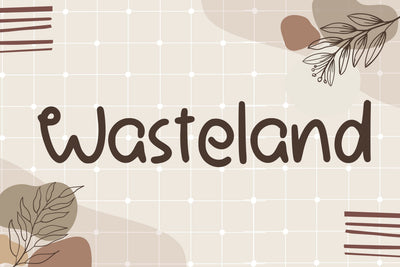
Wasteland Font
Wasteland is a delicate, elegant and flowing handwritten font. It has beautiful and well balanced characters and as a result, it matches a wide pool of designs. Add it to your most creative ideas and notice how it makes them come alive!